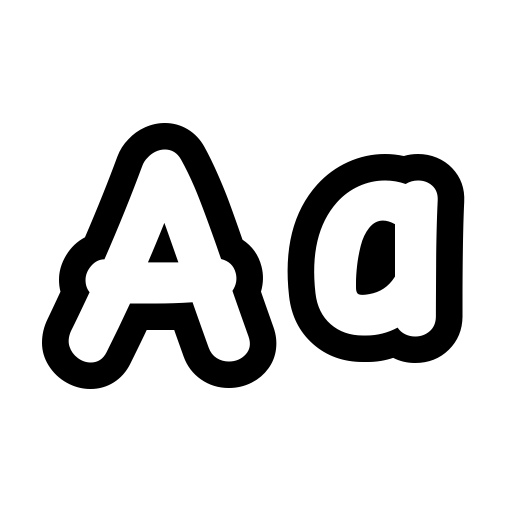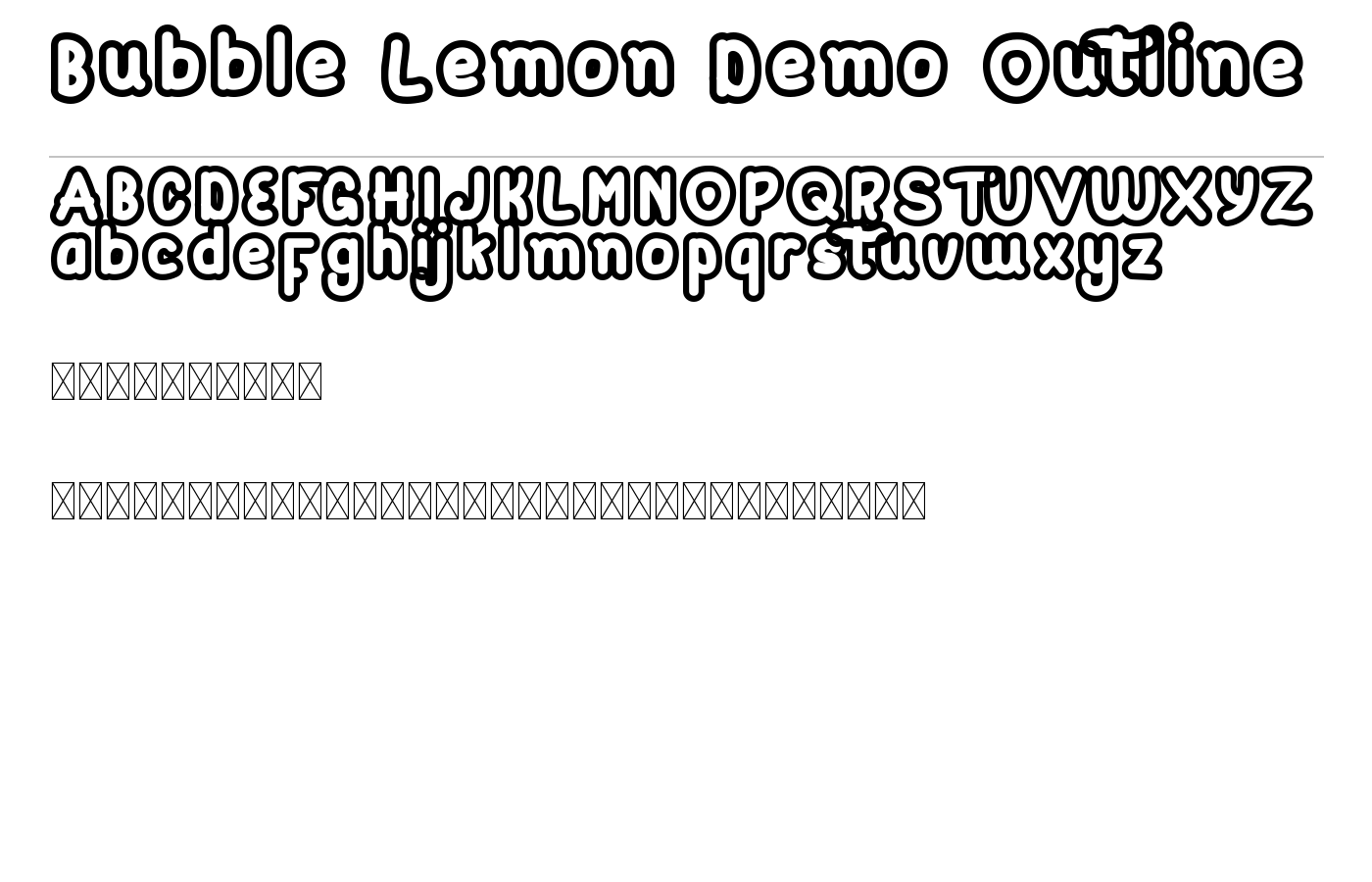
Bubble Lemon Demo Outline is a playful and friendly sans serif font featuring rounded, bubbly letterforms with thick, uniform strokes and a fun outline style. Its casual, approachable vibe makes it perfect for children's content, informal branding, and eye-catching headlines where a cheerful and lighthearted tone is desired. This font works best in large sizes for logos, posters, and playful packaging that benefit from its bold, whimsical character.
Bubble Lemon Demo Font
About Bubble Lemon Demo Font